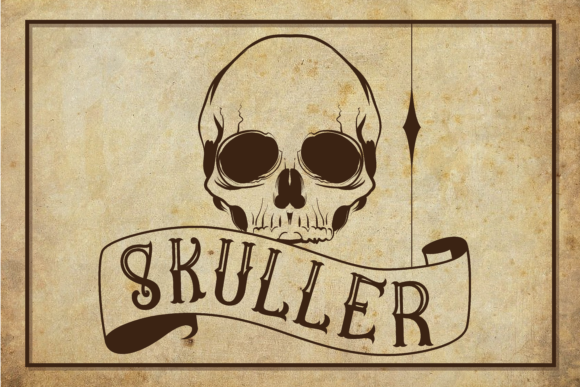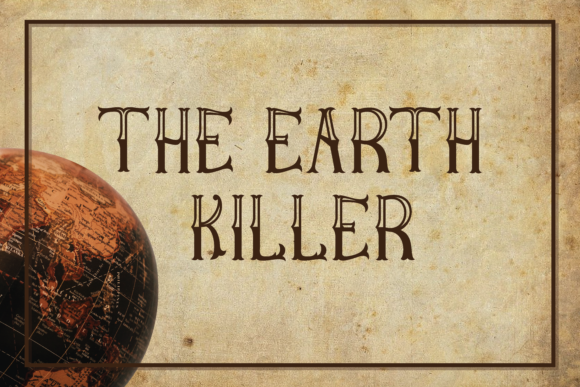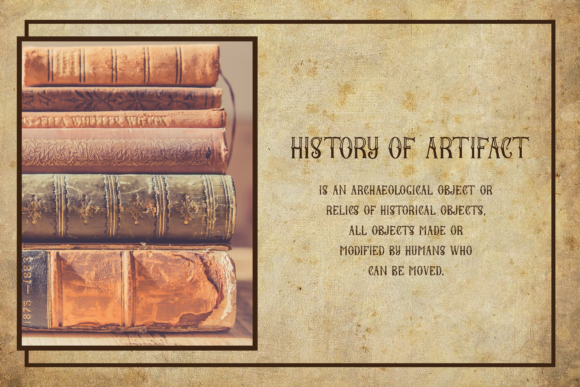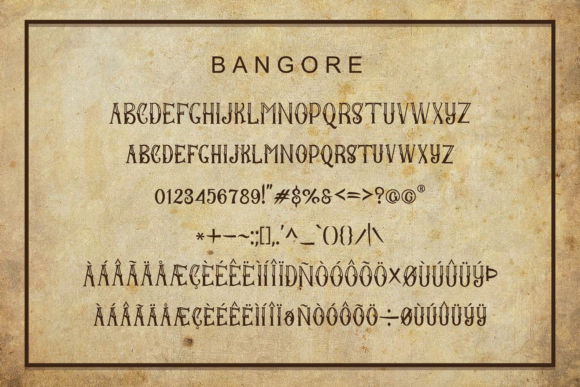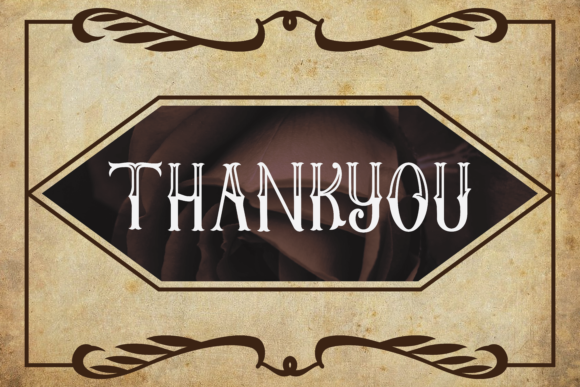
Bangore Font: Elevate Your Design with a Touch of Retro and Spooky Charm
In the world of design, fonts play a pivotal role in conveying the mood and aesthetic of a project. Whether you’re crafting a spooky Halloween flyer, a retro-themed advertisement, or simply looking to add a unique touch to your design portfolio, the Bangore font is an exceptional choice. This beautiful vintage font is gaining popularity among designers and crafters alike for its versatility and distinctive charm.
The Allure of Bangore Font
Bangore is not just any font; it’s a gateway to creating standout designs that capture the essence of retro and spooky themes. Its vintage appeal brings a nostalgic feel to any project, making it perfect for those looking to evoke a sense of nostalgia or eeriness. The Bangore font’s unique character set makes it highly versatile, suitable for a wide range of design projects from posters and flyers to digital content and craft projects.
Why Choose Bangore for Your Projects?
So, what makes Bangore a go-to font for designers and crafters? Here are a few reasons:
- Retro and Spooky Aesthetic: Bangore’s vintage design elements give it a retro feel that’s perfect for projects that require a touch of nostalgia or a spooky vibe.
- Versatility: This font can be used across various design projects, from digital content like social media graphics and blog headers to print materials such as posters, flyers, and invitations.
- Easy to Read: Despite its vintage appeal, Bangore maintains a level of readability that ensures your message is conveyed clearly, making it practical for use in both headings and body text.
- Customization: The Bangore font can be easily customized to fit your project’s specific needs. Whether you’re adjusting the size, color, or integrating it with other design elements, Bangore adapts seamlessly.
Using Bangore in Design Projects
Incorporating Bangore into your design projects is straightforward. Here are some ideas to get you started:
- Halloween and Spooky Themes: Use Bangore to create eye-catching Halloween decorations, party invitations, or social media posts that are sure to send chills.
- Retro Advertising: Give your advertisements a vintage makeover with Bangore. It’s perfect for campaigns aiming to evoke a nostalgic feel or stand out with a unique aesthetic.
- Branding and Logos: For businesses with a retro or spooky brand identity, Bangore can be a valuable asset in creating a distinctive logo or brand message.
- Crafting and DIY Projects: Crafters can use Bangore to add a personalized touch to their DIY projects, such as handmade cards, scrapbooking, or woodworking projects.
Tips for Maximizing Bangore’s Impact
To make the most out of the Bangore font, consider the following tips:
- Pair with Complementary Fonts: Combine Bangore with modern or serif fonts to create a contrast that highlights the unique qualities of the Bangore font.
- Experiment with Colors: While Bangore looks great in traditional black and white, experimenting with colors can enhance its vintage or spooky appeal.
- Adjust Size and Weight: Playing with the size and weight of the Bangore font can add emphasis to certain words or phrases, making your design more dynamic.
The Bangore font is a powerful tool for designers and crafters looking to add a touch of retro or spooky charm to their projects. Its unique vintage aesthetic, versatility, and readability make it an excellent choice for a wide range of applications. Whether you’re creating a standout advertisement, a spooky Halloween decoration, or a personalized craft project, Bangore is sure to elevate your design and make it truly memorable.